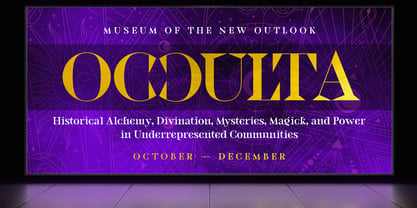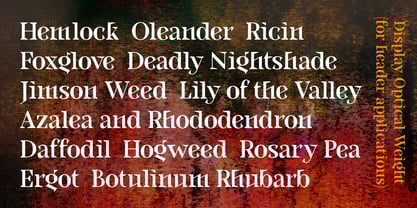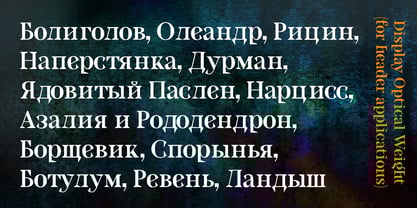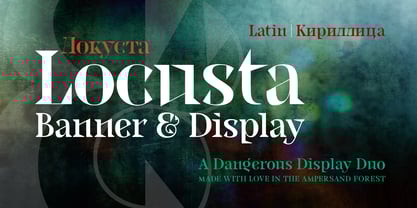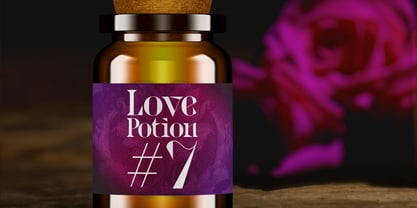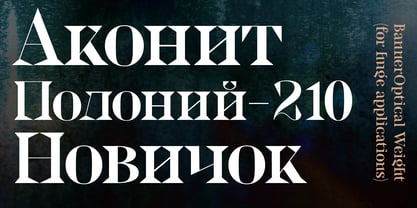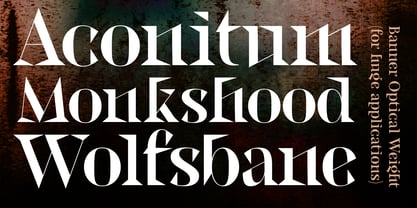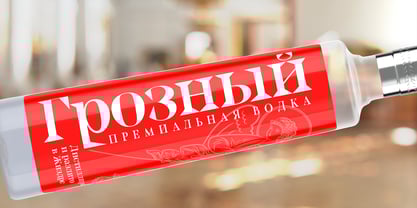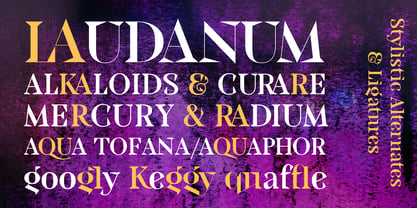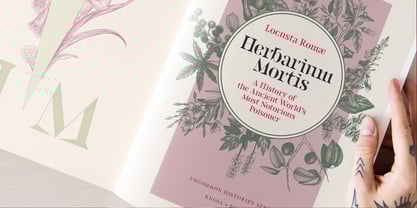
The Locusta Font Family was designed by DC Scarpelli and published by The Ampersand Forest. Locusta contains 2 styles and family package options.
Named for the most notorious professional poisoner of the ancient world, Locusta is a dangerous and deadly serif display face that celebrates sharpness and contrast.
Use the ultrafine Banner optical weight for enormous, super-large-format pieces. Use display for headline-sized type.
Locusta supports all Western European, Eastern European, and Cyrillic character sets!
Locusta